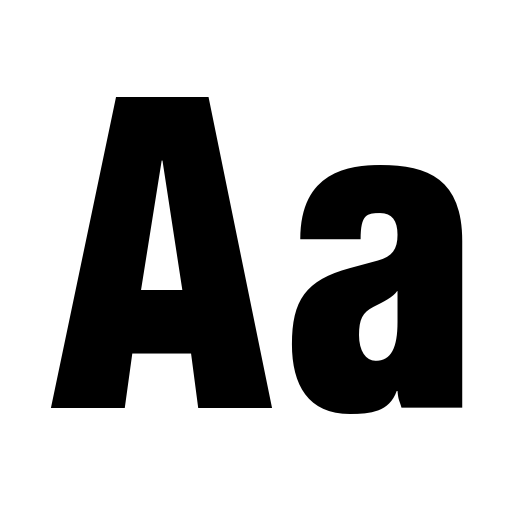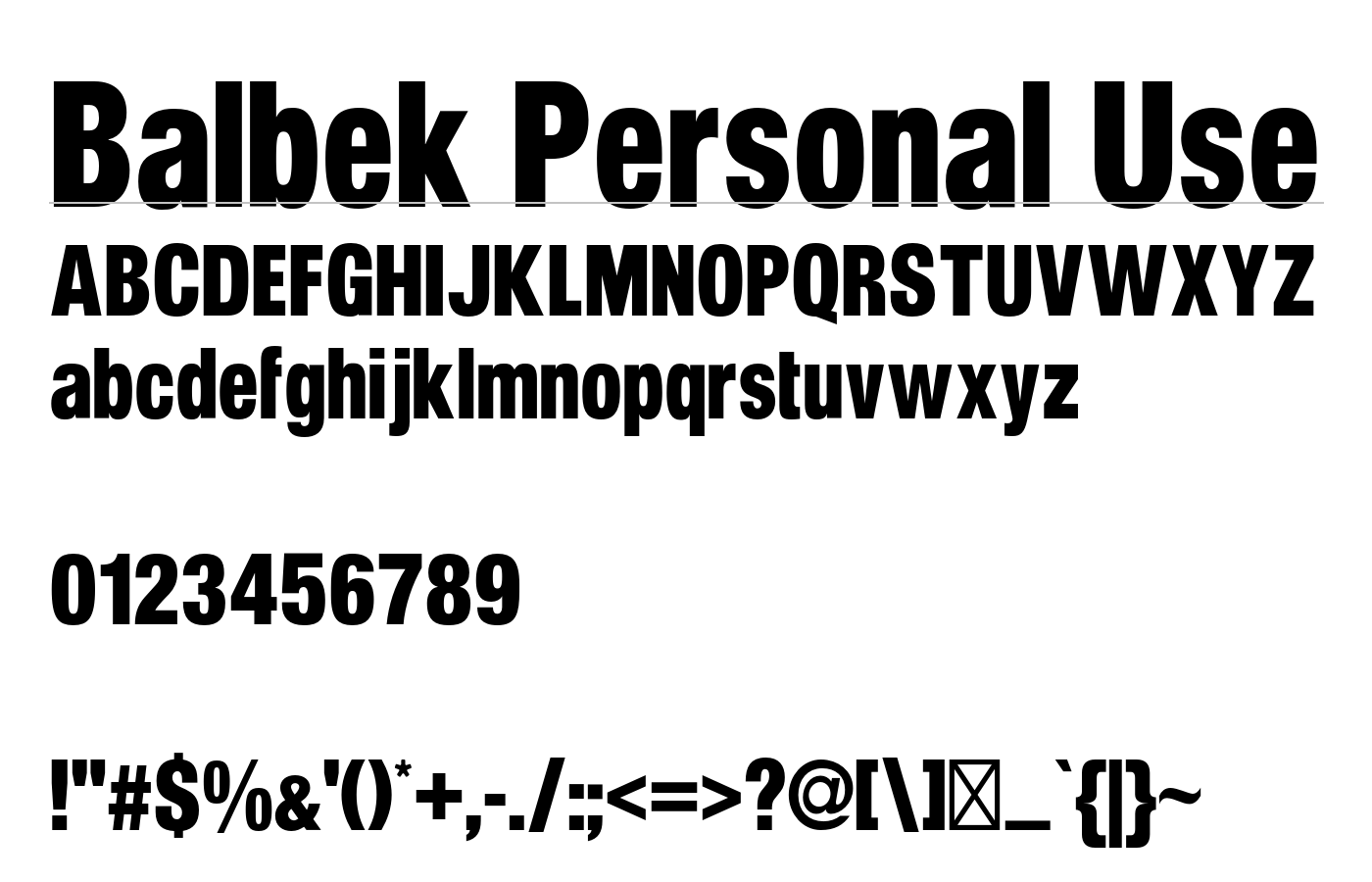
Balbek Personal Use is a bold, condensed sans serif font with a strong presence and high-impact style. Its tall x-height and tight letter spacing give it a modern, industrial feel, ideal for striking headlines, branding, and editorial uses where clarity and assertiveness are key. This font works well for designers seeking a confident and authoritative look in packaging, posters, and digital media.
Balbek Personal Use Font
About Balbek Personal Use Font
| Font family | Balbek Personal Use Font |
| Designer | Martin Katibi |